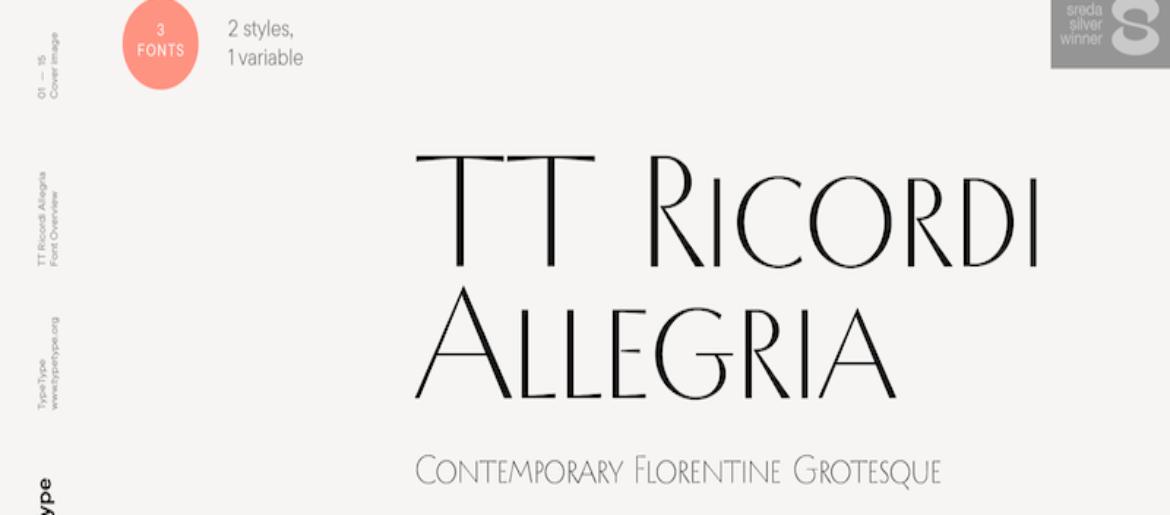
TT Ricordi Allegria Font
TT Ricordi Allegria by TypeType Foundry is a modern high-contrast sans with a genuinely unusual origin story. Designed by Antonina Zhulkova as part of the Ricordi font line — a series dedicated to rediscovering typographic treasures in old stone inscriptions and plaques — this typeface draws its inspiration from the semi-erased lettering found in Florence’s Basilica di Santa Croce. A free personal-use trial is available.